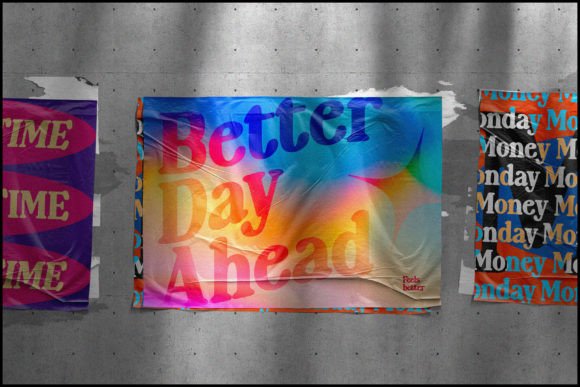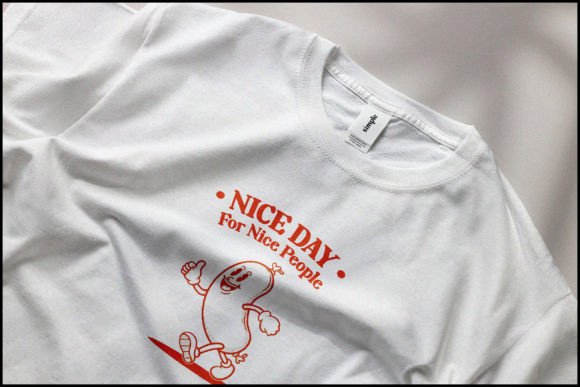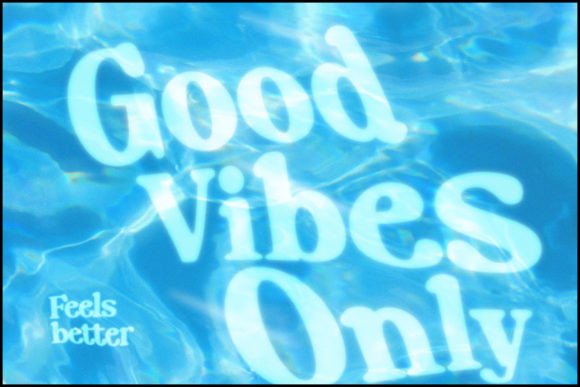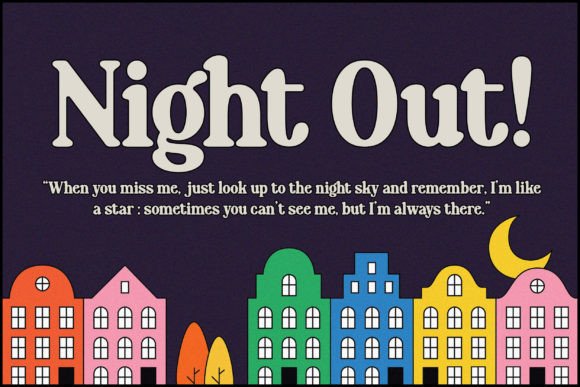
Introducing Feels Better Font: The Cool, Funky Serif Display Font You Need
Are you tired of using the same old fonts in your design projects? Do you want to add a touch of personality and whimsy to your creations? Look no further than Feels Better Font, a cool, funky serif display font that’s sure to elevate your designs to the next level. In this article, we’ll dive into the unique features of Feels Better Font, explore its benefits, and provide you with inspiration on how to use it in your projects.
What Makes Feels Better Font So Special?
Feels Better Font is a one-of-a-kind serif display font that’s designed to add a dash of charm and personality to any design project. Its unique blend of classic and modern elements makes it perfect for designers and crafters who want to create something truly eye-catching. With its funky, laid-back vibe, Feels Better Font is ideal for projects that require a bit of swagger and attitude.
Key Features of Feels Better Font
• Unique Charm and Personality: Feels Better Font has a distinct character that’s sure to set your designs apart from the crowd.
• Serif Display Font: The font’s serif design adds a touch of sophistication and elegance, making it perfect for display text.
• Cool and Funky: Feels Better Font has a laid-back, funky vibe that’s sure to appeal to designers and crafters who want to add some personality to their designs.
• Highly Versatile: The font is suitable for a wide range of design projects, from posters and flyers to logos and branding materials.
Benefits of Using Feels Better Font
So, why should you choose Feels Better Font for your design projects? Here are just a few benefits of using this amazing font:
• Adds Personality to Your Designs: Feels Better Font is the perfect way to add some character and whimsy to your designs.
• Enhances Readability: The font’s clear and legible design makes it easy to read, even at larger sizes.
• Versatile and Adaptable: Feels Better Font can be used in a wide range of design projects, from digital to print.
• Stand Out from the Crowd: With its unique design, Feels Better Font is sure to help your designs stand out from the competition.
Inspiration for Using Feels Better Font
Now that you know more about Feels Better Font, let’s explore some inspiring ways to use it in your design projects:
• Posters and Flyers: Use Feels Better Font as a headline font to grab attention and add some personality to your posters and flyers.
• Logos and Branding: Create a unique and memorable logo with Feels Better Font, perfect for businesses and brands that want to stand out.
• Social Media Graphics: Add some flair to your social media graphics with Feels Better Font, perfect for creating eye-catching Facebook posts, Instagram stories, and more.
• Packaging Design: Use Feels Better Font to add some personality to your packaging design, making your products stand out on store shelves.
In conclusion, Feels Better Font is a cool, funky serif display font that’s sure to enhance any design project you add it to. With its unique charm and personality, high versatility, and numerous benefits, Feels Better Font is a must-have for designers and crafters who want to create something truly special. So why wait? Download Feels Better Font today and start adding some personality to your designs!